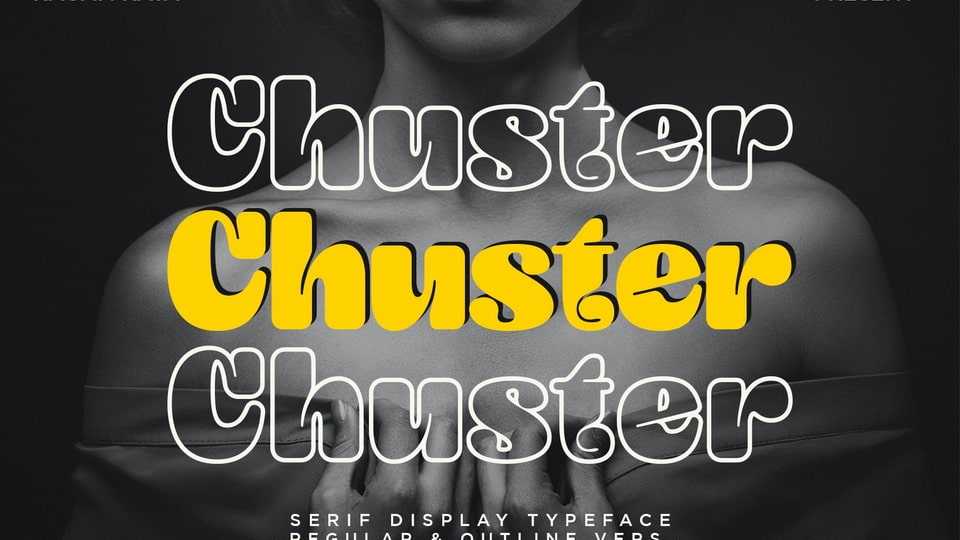
Download Chuster font, a typeface that carries a retro theme, presenting a bold and attractive appearance. With a design inspired by a retro aesthetic, Chuster exudes a strong and bold impression.